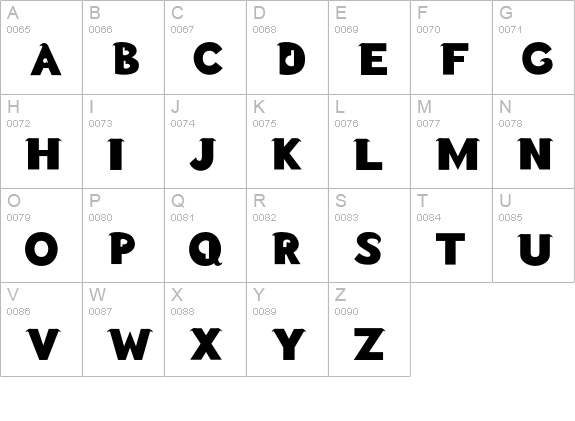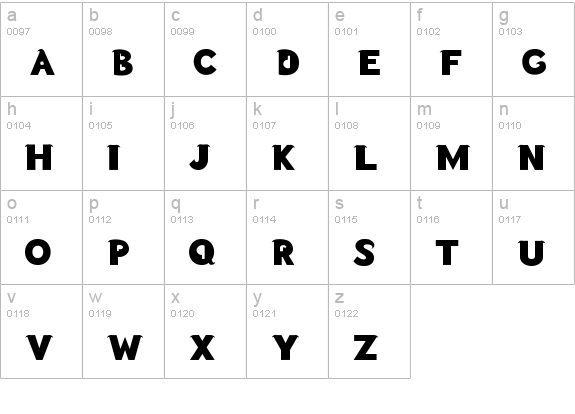
Utrecht Font Details
Introducing Utrecht Font, a beautifully crafted typeface that combines modern elegance with timeless appeal. Designed to effortlessly enhance any design project, Utrecht Font offers a perfect balance of sophistication and versatility. With its clean lines and carefully crafted letterforms, Utrecht Font exudes a sense of professionalism and refinement. Its sleek and legible characters make it an ideal choice for a wide range of applications, from branding and corporate identities to editorial design, packaging, and more. But what sets Utrecht Font apart from the rest is its availability as a free download. Yes, you read that right – Utrecht Font can be freely obtained at FontsMarket.com, where designers and enthusiasts alike can access this remarkable typeface without any cost. By offering Utrecht Font as a free resource, its creators have made it easily accessible to anyone seeking to elevate their designs. This generosity ensures that individuals and businesses, regardless of their budget, can benefit from the elegance and versatility that Utrecht Font brings to the table. So whether you're a professional designer looking to add a touch of class to your next project or a hobbyist searching for the perfect font to make your creations shine, Utrecht Font is here to meet your needs. Download it for free at FontsMarket.com and discover the endless possibilities that this remarkable typeface has to offer. Embrace the power of Utrecht Font and watch your designs reach new heights of excellence.